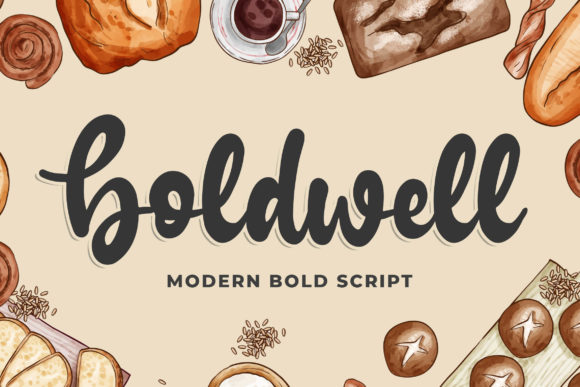
The Boldwell Font: A Design Game-Changer
I’ll never forget the time I was working on a branding project for a trendy coffee shop. I had spent hours perfecting the logo design, but something felt off. The font I had chosen just wasn’t doing justice to the unique vibe of the shop. That’s when I stumbled upon the Boldwell font, and it completely transformed the design. In this article, I’ll share my experience with Boldwell, its features, and how to make the most of it in your designs.
My Honest Review of Boldwell
I’ve had the pleasure of working with Boldwell on several projects, and here’s what I think:
- ✨ Smooth and bold lines: Boldwell’s monoline script is incredibly smooth and bold, making it perfect for headlines and titles.
- ✅ Friendly letters: The font has a unique charm, with letters that feel friendly and approachable.
- 💯 Versatility: Boldwell works well in a variety of design contexts, from logos to posters to social media graphics.
While Boldwell is an amazing font, it’s not without its quirks:
- 🤔 Limited use in body text: Due to its bold nature, Boldwell might not be the best choice for body text, especially in longer paragraphs.
- ⚠️ Glyph limitations: Some users have reported that the font could benefit from more glyphs and special characters.
The Story Behind Boldwell
Boldwell was designed with the goal of creating a font that’s both bold and smooth. The designer, inspired by classic monoline scripts, aimed to create a font that’s friendly, approachable, and perfect for creative projects. While the exact story behind Boldwell might be unknown, its unique charm has captured the hearts of designers and crafters alike.
| Font Name | Boldwell Font |
| Author | Blankids Studio |
| What makes Boldwell unique? | Boldwell’s smooth, monoline script and friendly letters make it a standout font. |
| Is Boldwell suitable for body text? | While Boldwell is amazing for headlines, it might not be the best choice for body text due to its bold nature. |